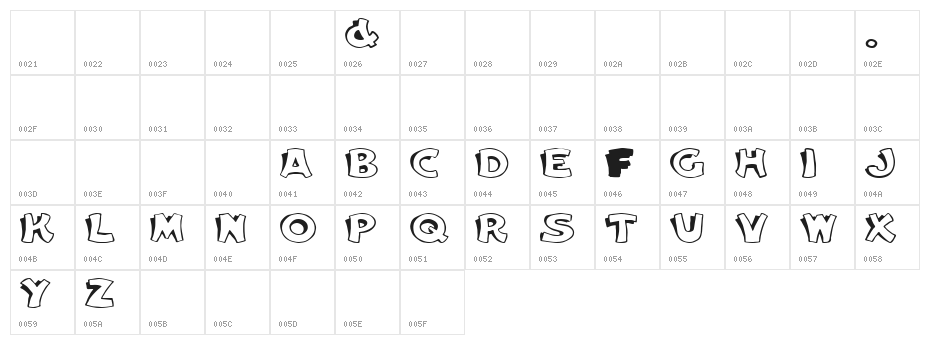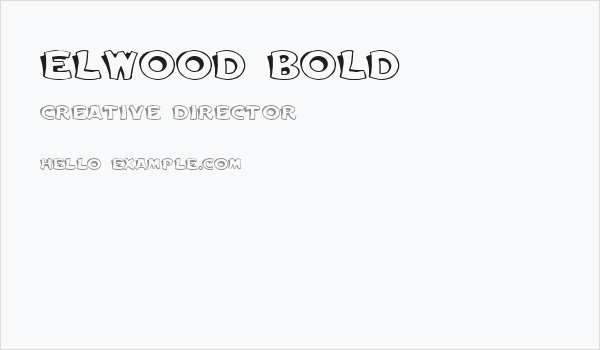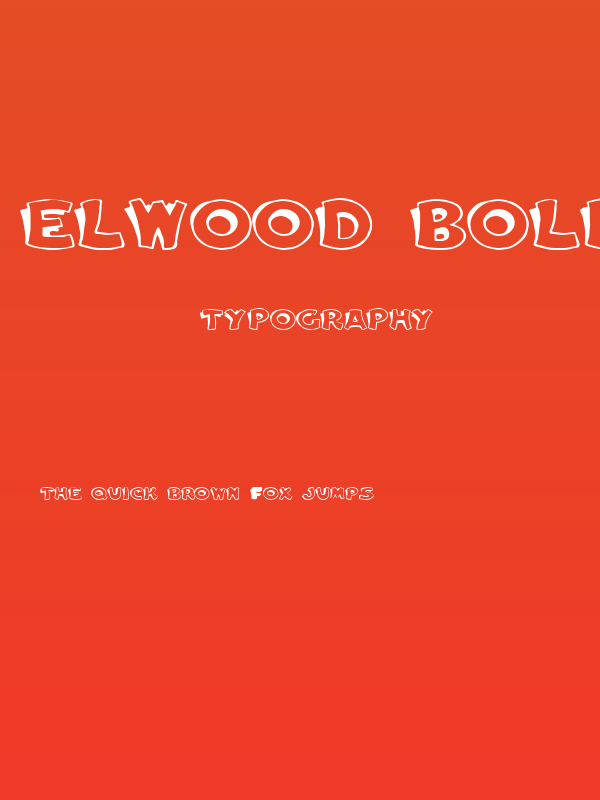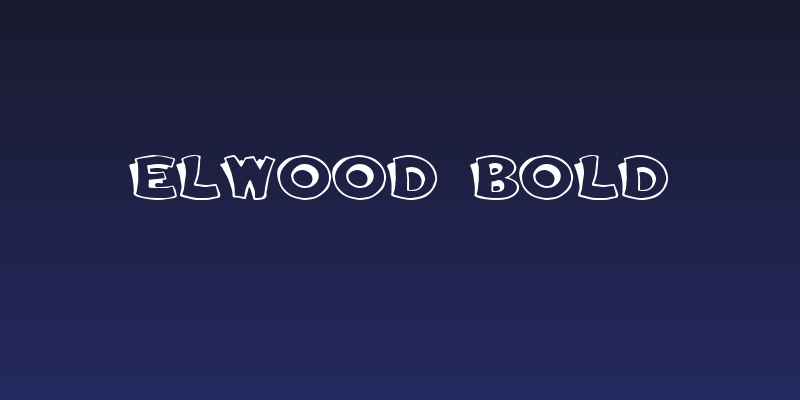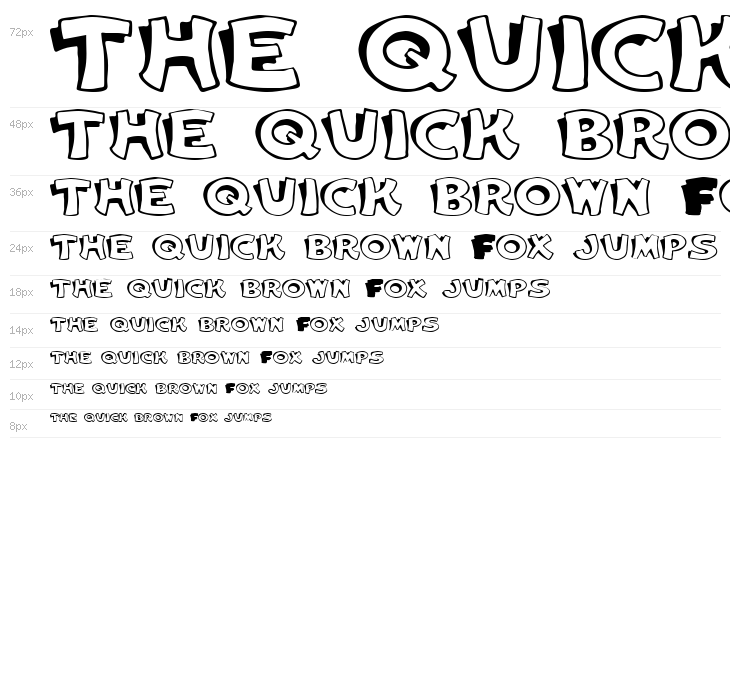
Elwood Bold Font
Elwood Bold Description
This font features a bold, playful style with a distinct cartoonish flair. The characters are outlined with a thick black border, giving them a three-dimensional appearance. Each letter has a slightly irregular shape, adding to the whimsical and informal feel. The font is highly legible, with wide spacing between characters that enhances readability. Its unique design makes it ideal for projects that require a fun and engaging aesthetic. The font's boldness ensures it stands out, making it suitable for eye-catching headlines or titles.
| Overall Style | Playful, Cartoonish |
| Proposed Projects | Ideal for children's books, comic strips, playful branding, and eye-catching posters. |